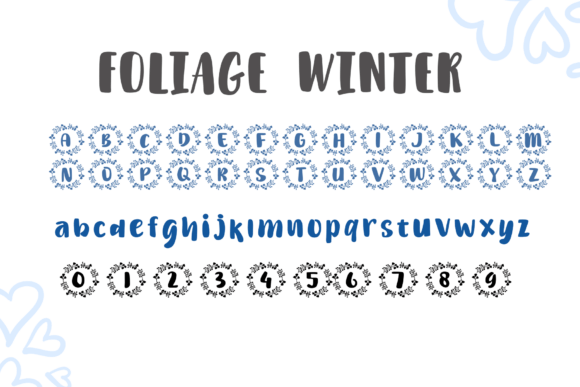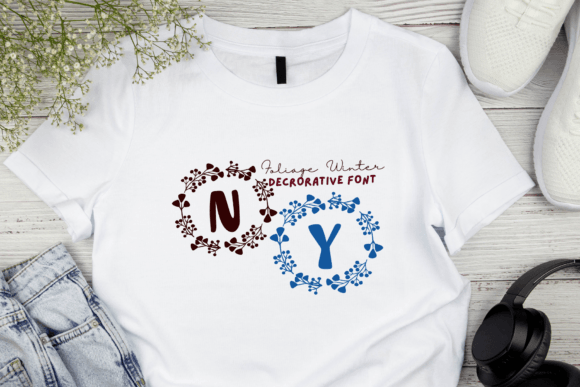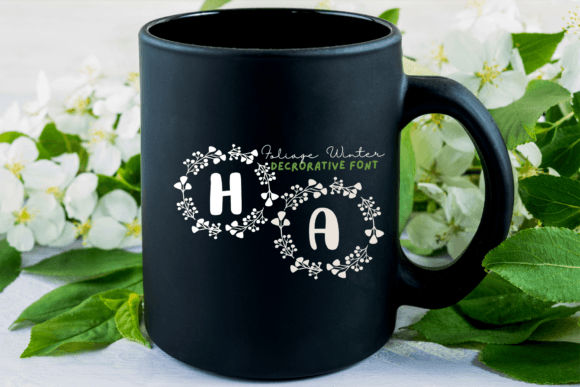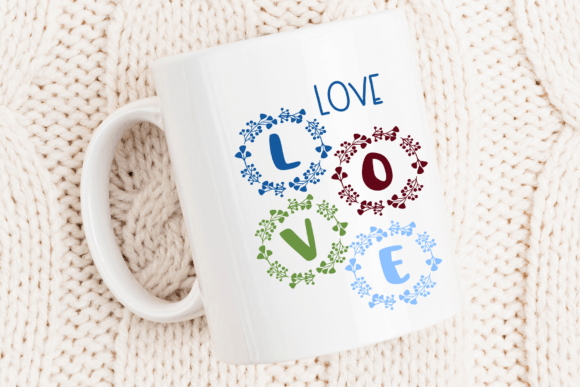
Foliage Winter Font: A Decorative Delight for Your Creative Projects
As the winter season approaches, designers and crafters are on the lookout for fonts that can add a touch of festive charm to their creations. If you’re searching for a decorative font that can elevate your winter-themed projects, look no further than Foliage Winter Font. In this article, we’ll explore the features and uses of this beautiful font, and how it can add a dash of winter wonder to your designs.
What is Foliage Winter Font?
Foliage Winter Font is a decorative font designed to capture the essence of the winter season. With its intricate and elegant design, this font is perfect for adding a touch of sophistication to your creative projects. Whether you’re a designer, crafter, or DIY enthusiast, Foliage Winter Font is a versatile and stylish choice that can be used for a wide range of applications.
Uses of Foliage Winter Font
Foliage Winter Font is a multifaceted font that can be used for various creative projects. Here are some ideas to get you started:
- Note-taking and journaling: Add a touch of winter charm to your notes and diary entries with Foliage Winter Font. It’s perfect for writing letters, journaling, or simply jotting down notes.
- Greeting cards and invitations: Create beautiful and festive greeting cards, invitations, and holiday cards with Foliage Winter Font.
- Banners and signs: Use Foliage Winter Font to create eye-catching banners and signs for your winter-themed events or parties.
- Social media posts: Add a touch of winter wonder to your social media posts, including Instagram captions, Facebook updates, and Twitter posts.
- Stationery and paper crafts: Use Foliage Winter Font to create beautiful stationery, including letterheads, envelopes, and gift tags.
- Mugs, cards, and shirts: Add a personal touch to your mugs, cards, and shirts with Foliage Winter Font.
Features of Foliage Winter Font
Foliage Winter Font boasts several features that make it a standout choice for designers and crafters:
- Unique and decorative design: Foliage Winter Font features an intricate and elegant design that captures the essence of the winter season.
- High-quality and scalable: This font is designed to be high-quality and scalable, making it perfect for use in a variety of applications, from small to large.
- Easy to read and use: Despite its decorative nature, Foliage Winter Font is easy to read and use, making it perfect for a wide range of creative projects.
Tips for Using Foliage Winter Font
Here are some tips for getting the most out of Foliage Winter Font:
- Experiment with colors and textures: Add depth and interest to your designs by experimenting with different colors and textures.
- Pair with complementary fonts: Pair Foliage Winter Font with complementary fonts to create visually appealing and cohesive designs.
- Use for headlines and titles: Use Foliage Winter Font for headlines and titles to add a touch of winter charm to your designs.
Foliage Winter Font is a beautiful and versatile decorative font that’s perfect for adding a touch of winter wonder to your creative projects. With its intricate design, high-quality, and ease of use, this font is a must-have for designers and crafters. Whether you’re creating greeting cards, banners, or social media posts, Foliage Winter Font is sure to impress. So why not give it a try and see how it can elevate your winter-themed designs?
Get Creative with Foliage Winter Font
Ready to get creative with Foliage Winter Font? Here are some ideas to get you started:
- Experiment with different designs: Experiment with different designs, colors, and textures to get a feel for the font.